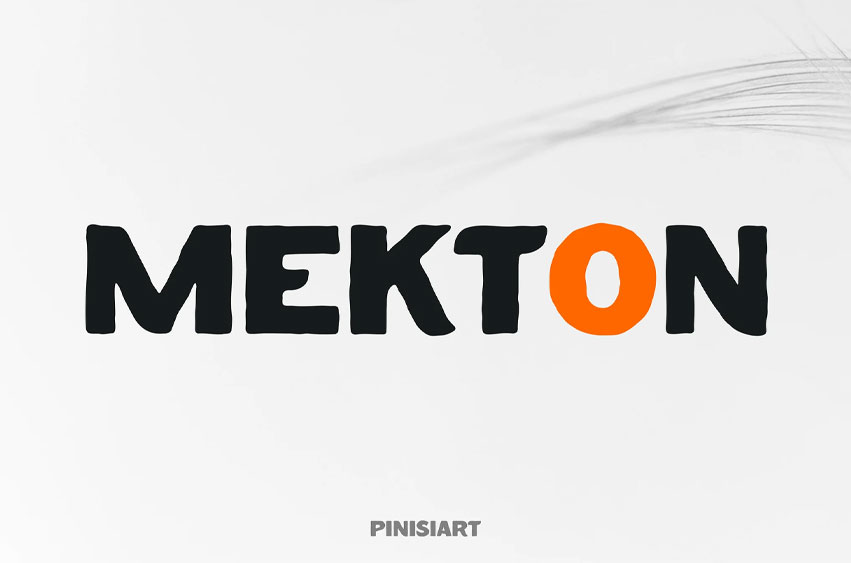
Mekton Font
Mekton Font is a retro-modern sans serif designed with purposeful edges and raw weight. It echoes utilitarian forms from mid-century design, balanced with modern minimalism. Each letter feels engineered: rugged, bold, and adaptable for projects demanding structure, visibility, and attitude. With tight letter spacing and smooth, blunt cuts, MEKTON channels brutalist clarity with neo-classic legacy.
Ideal for posters, editorial headlines, street graphics, event campaigns, and signage systems, MEKTON thrives where form meets function. It’s the go-to typeface for architects, design studios, UI mockups, product packaging, or fashion brands pushing bold identity. It delivers an industrial attitude and modular control for a clean, calculated tone.
• Built for Impact, Designed for Control
• Retro Modern Sans Serif – Sharp terminals and geometric frame for mid-century appeal
• Balanced structure for high readability
• Suitable for digital and print applications
• Great for layouts that require confident typography
• Market-Ready Flexibility
• Ideal for poster design, editorial layouts, and urban branding
• Retro yet fresh – fits in nostalgic or modern tech design
• Harmonizes well with flat design and bold color palettes